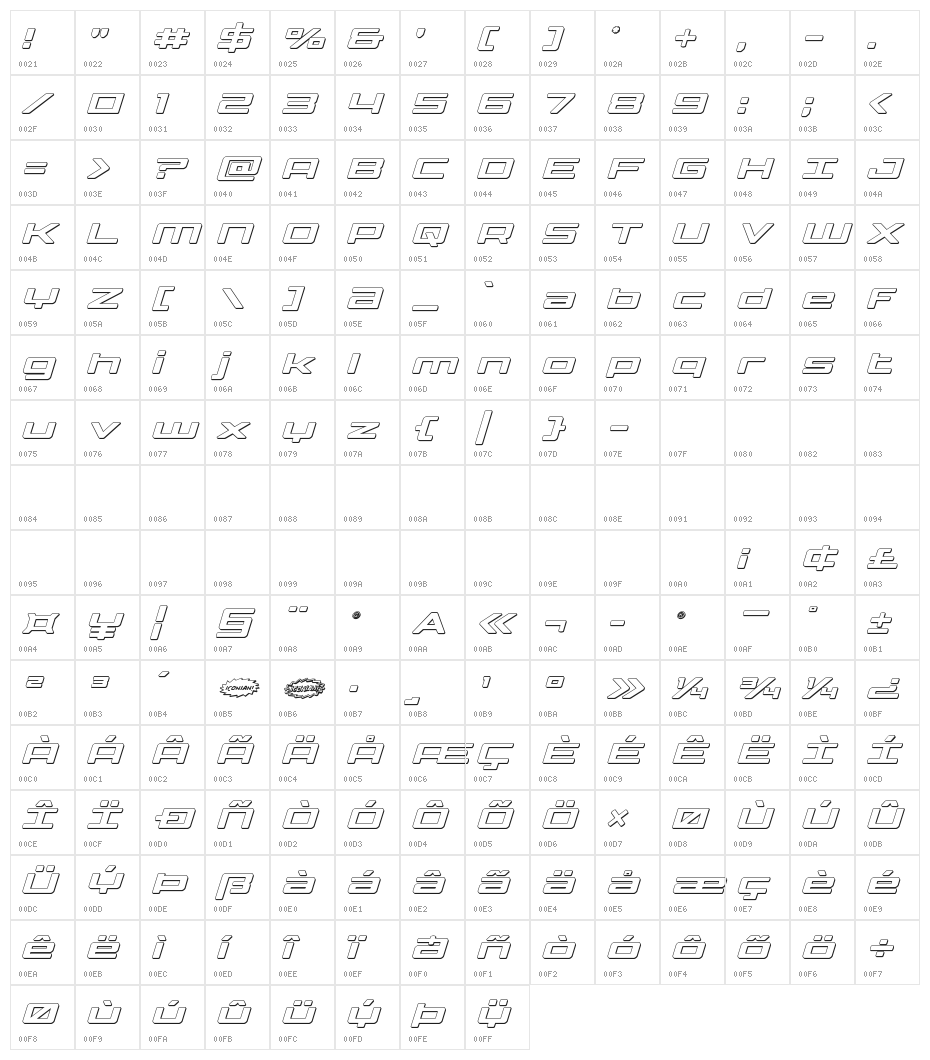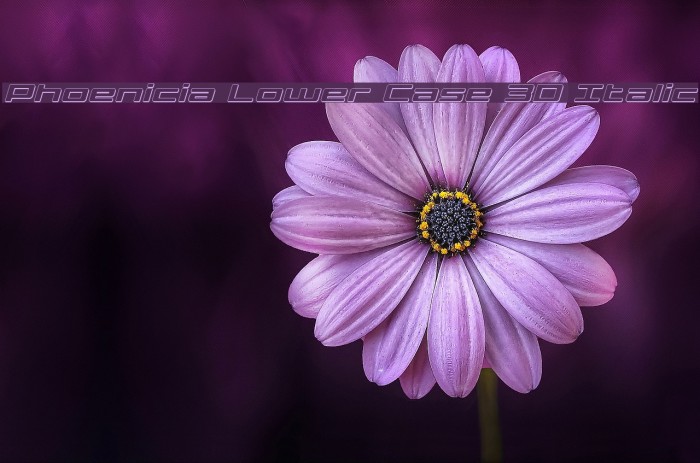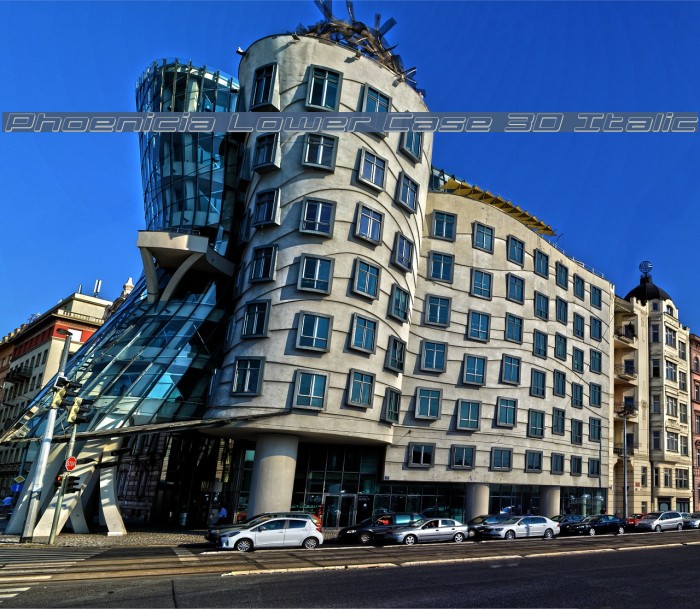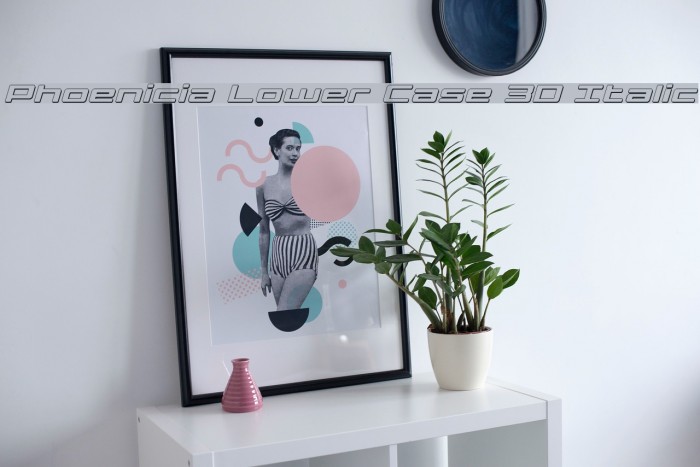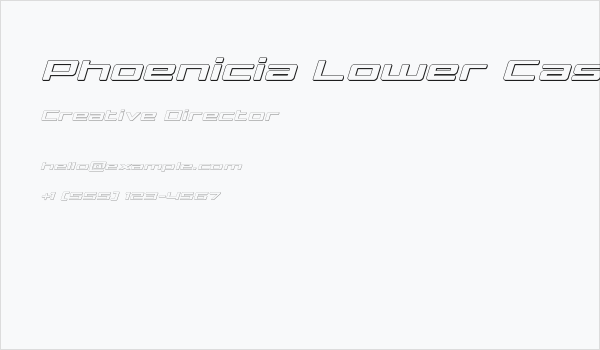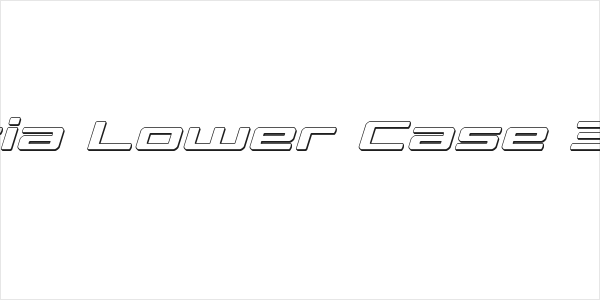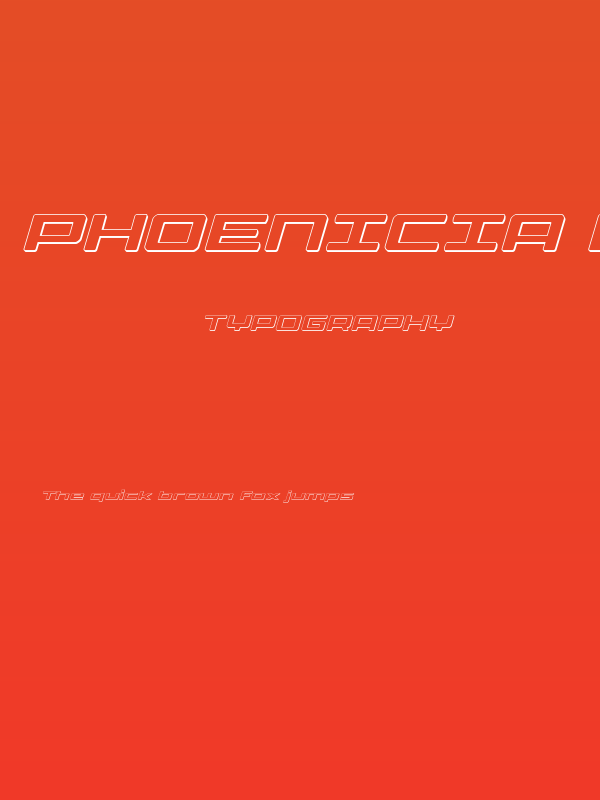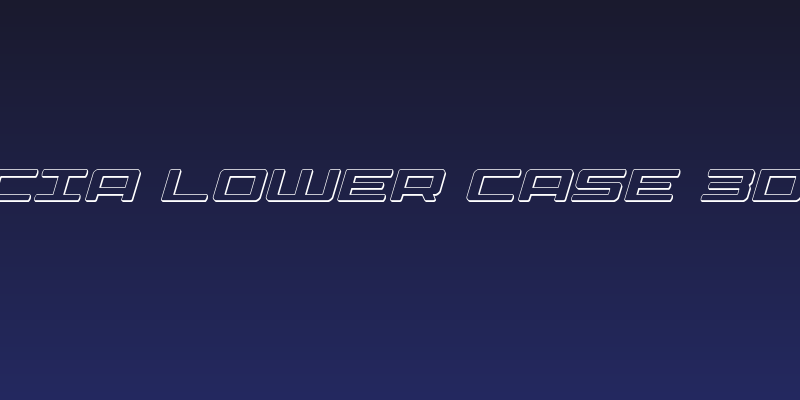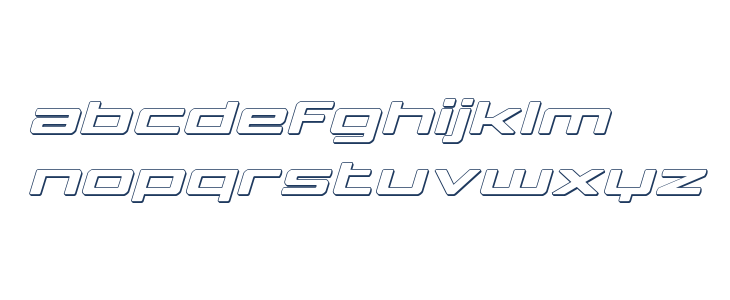
Phoenicia Lower Case 3D Italic Font
Phoenicia Lower Case 3D Italic Description
This font features a distinct 3D effect with italicized characters, giving it a dynamic and futuristic appearance. The letters are outlined, creating a hollow effect that adds depth and dimension. The style is consistent across uppercase, lowercase, numbers, and special characters, maintaining a cohesive look. The geometric shapes and clean lines contribute to a modern aesthetic, while the italic slant adds a sense of movement. This font is well-suited for projects that require a bold and eye-catching design, such as posters, logos, or digital media.
Proposed ProjectsIdeal for futuristic branding, tech-related designs, digital media, and eye-catching posters.